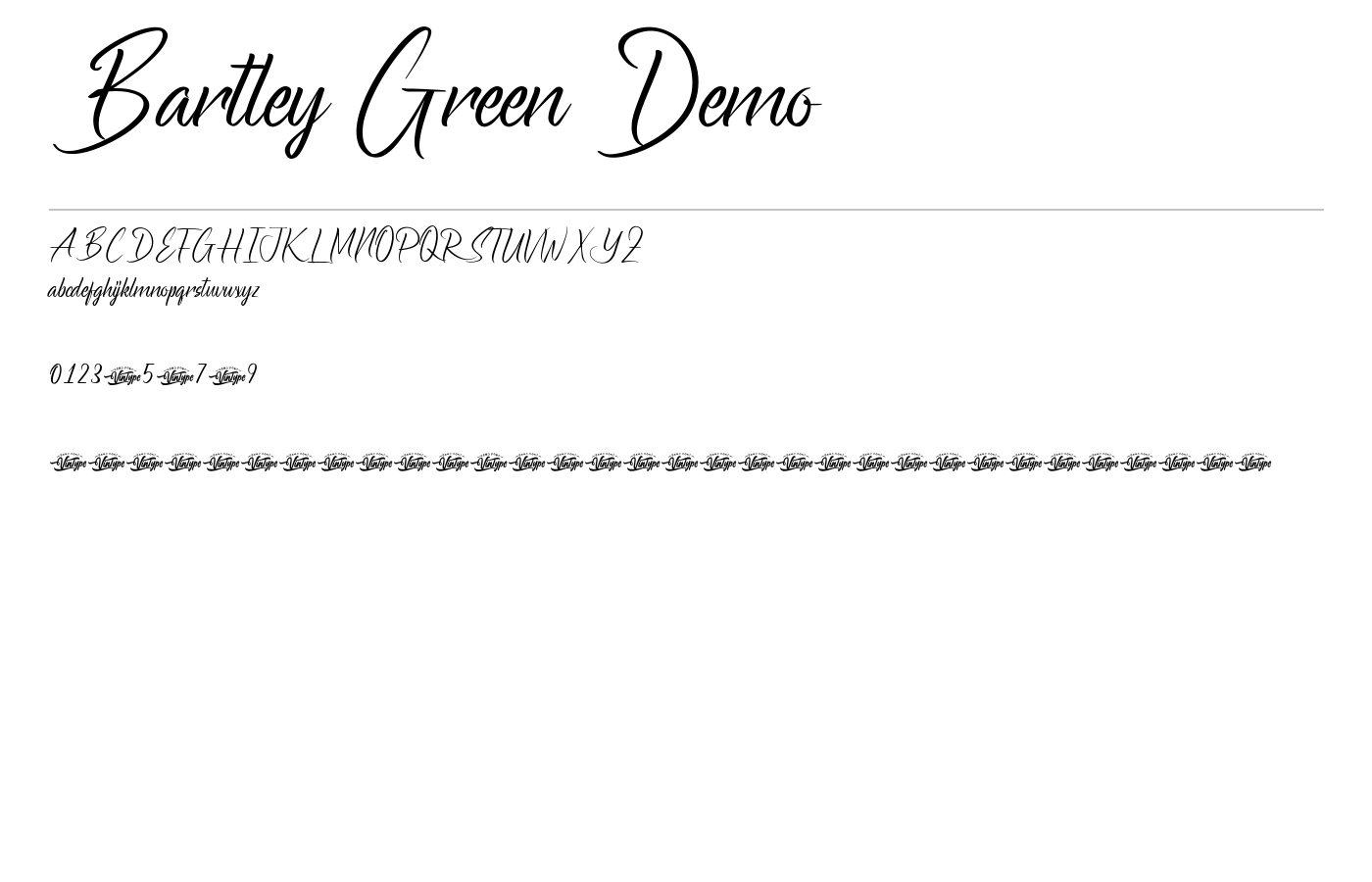
Bartley Green Demo is an elegant, slender script font with a graceful, handwritten style that features delicate, flowing strokes and a high contrast between thick and thin lines. Its tall, narrow letterforms and smooth curves lend a sophisticated, refined feel, making it perfect for luxury branding, wedding invitations, and stylish editorial designs where a personal, artistic touch is desired. This font shines in headlines and decorative uses, adding warmth and elegance without overwhelming the design.
Bartley Green Demo Font
About Bartley Green Demo Font